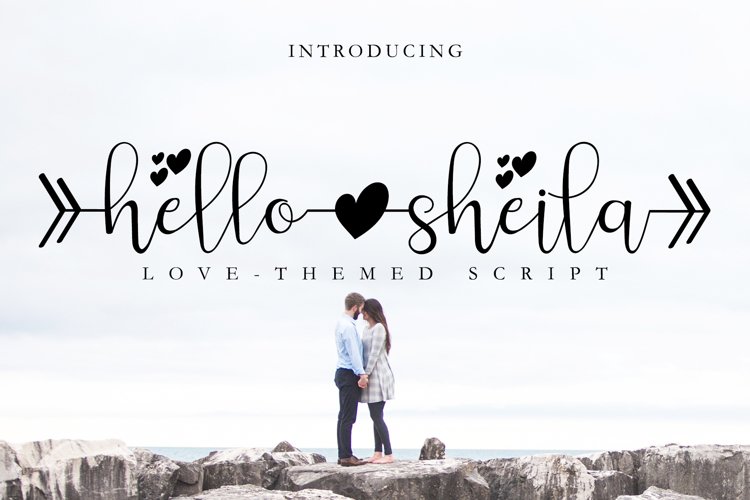
Hello Sheila - Heart Connection Font Script
Hello Sheila is beautiful script font with love arrow swashes. This font will radiate the romantic feeling of your design.
Hello Sheila can be used for wide ranges of application, such as wedding design, logo, invitations, social media posts, and others.
+Tons of Glyphs
+PUA-Encoded additional character with love accent
+Multilingual glyphs.